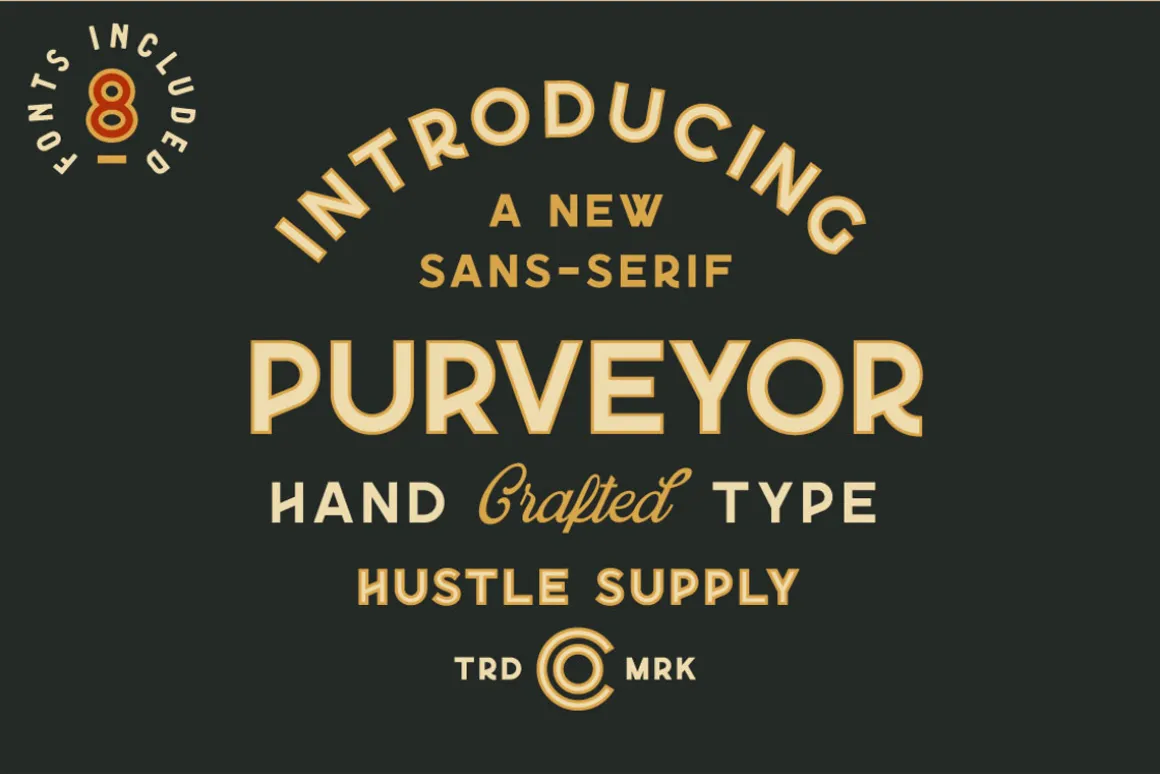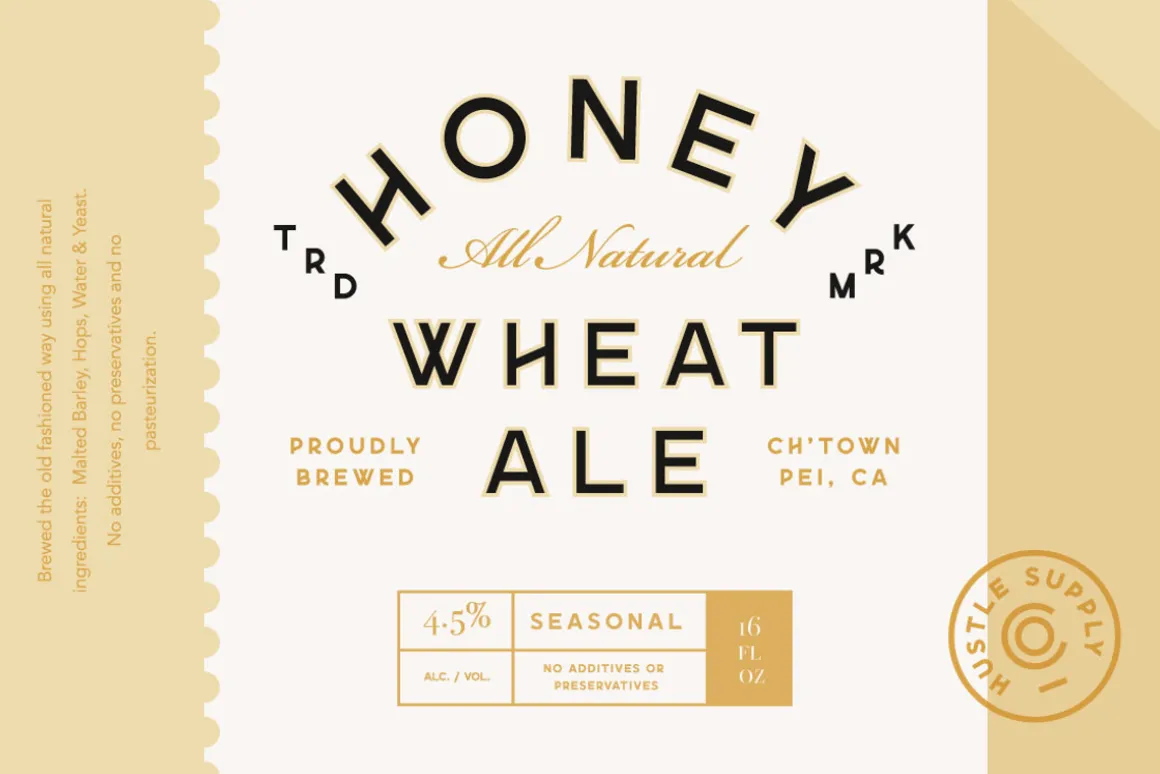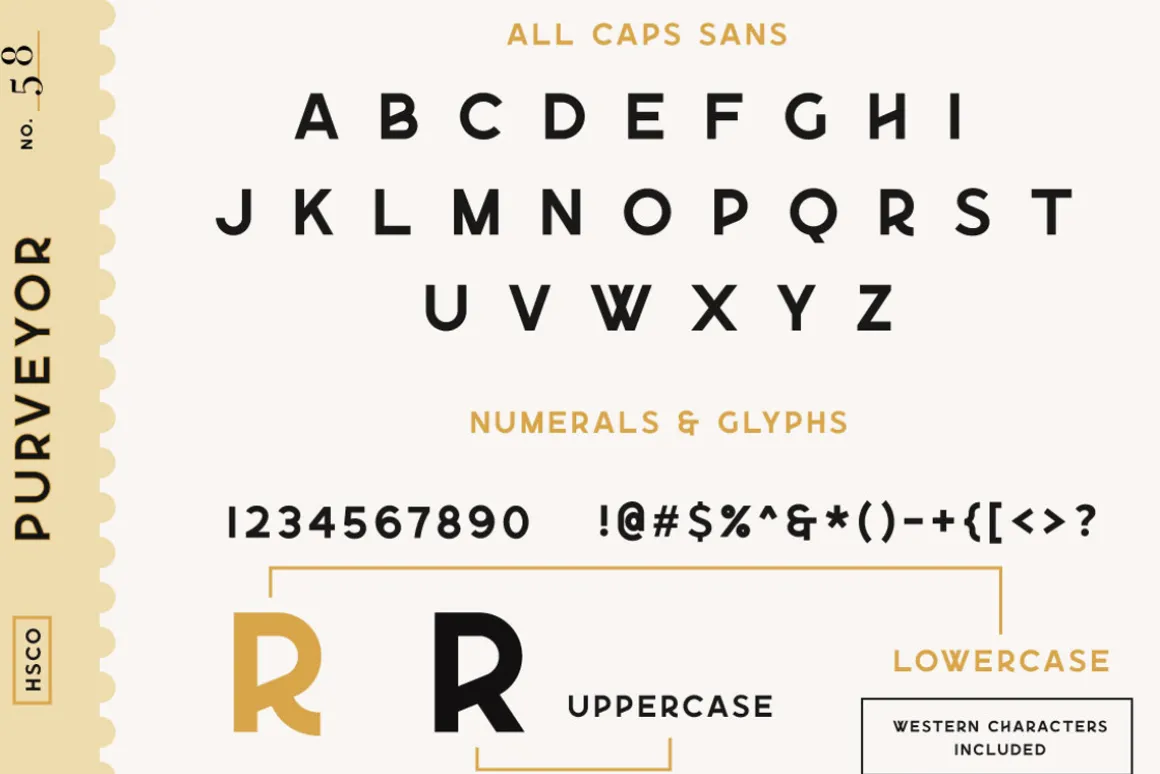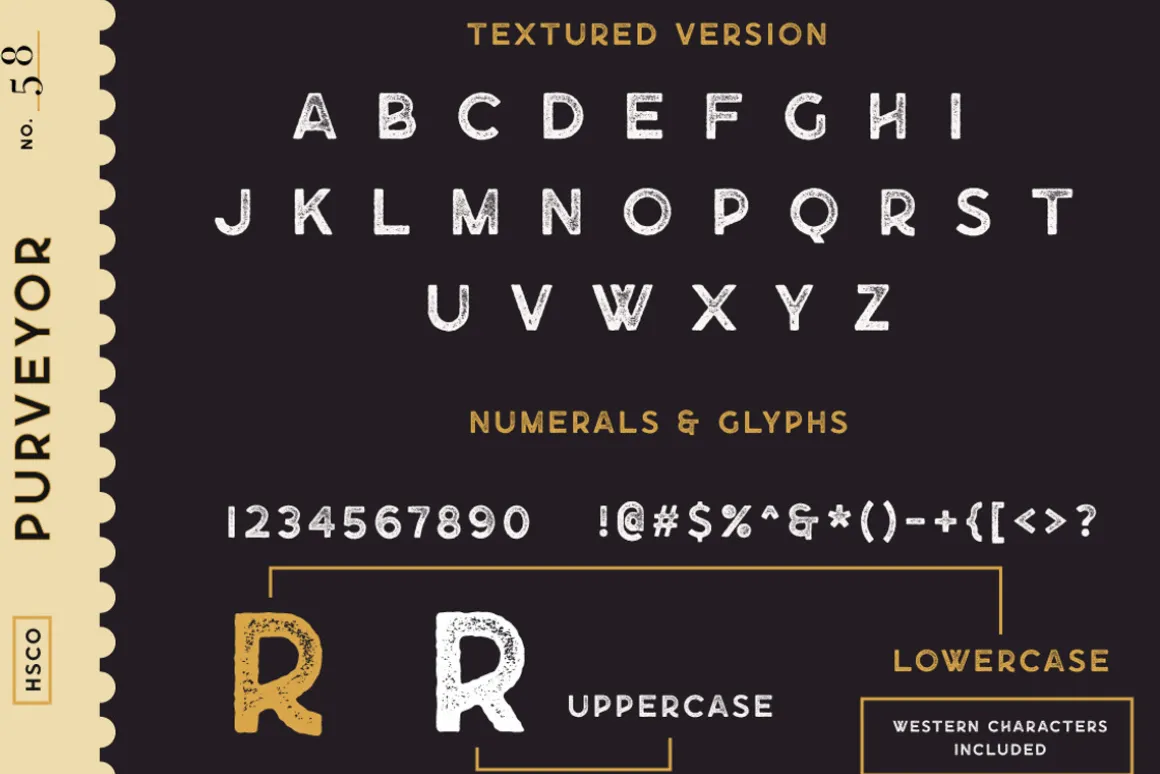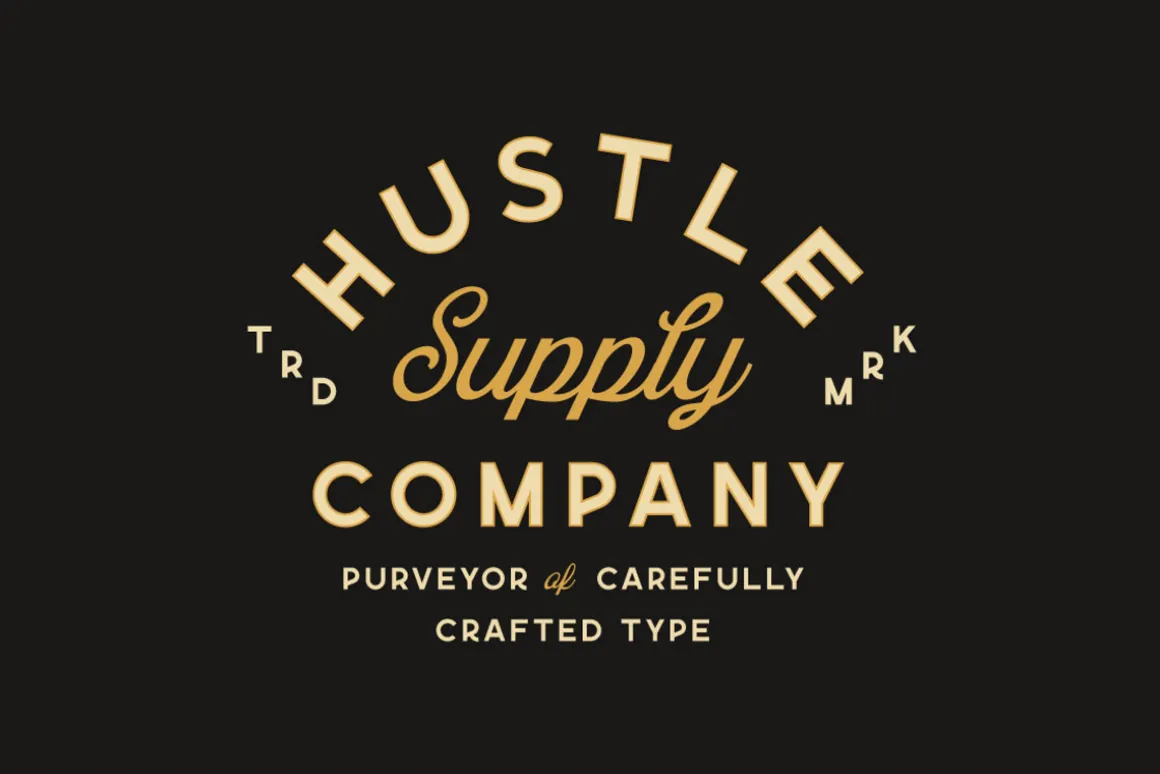
Purveyor
Purveyor is a bold modern sans serif with a lot of character.This will be your “Work Horse” for a lot of projects.It works nicely for projects that require a more refined yet vintage aesthetic.Purveyor is a simple yet refined All-Caps sans serif.I had a ton of fun making the specimens for this font, which is usually a good sign that I’ll use it regularly.
Purveyor includes 8 versions:Regular, Rounded, Rough, Textured (+ 4 Oblique Versions).
Purveyor comes with Western European Characters.
By the way, I included 2 R’s – Just uppercase and lowercase to access